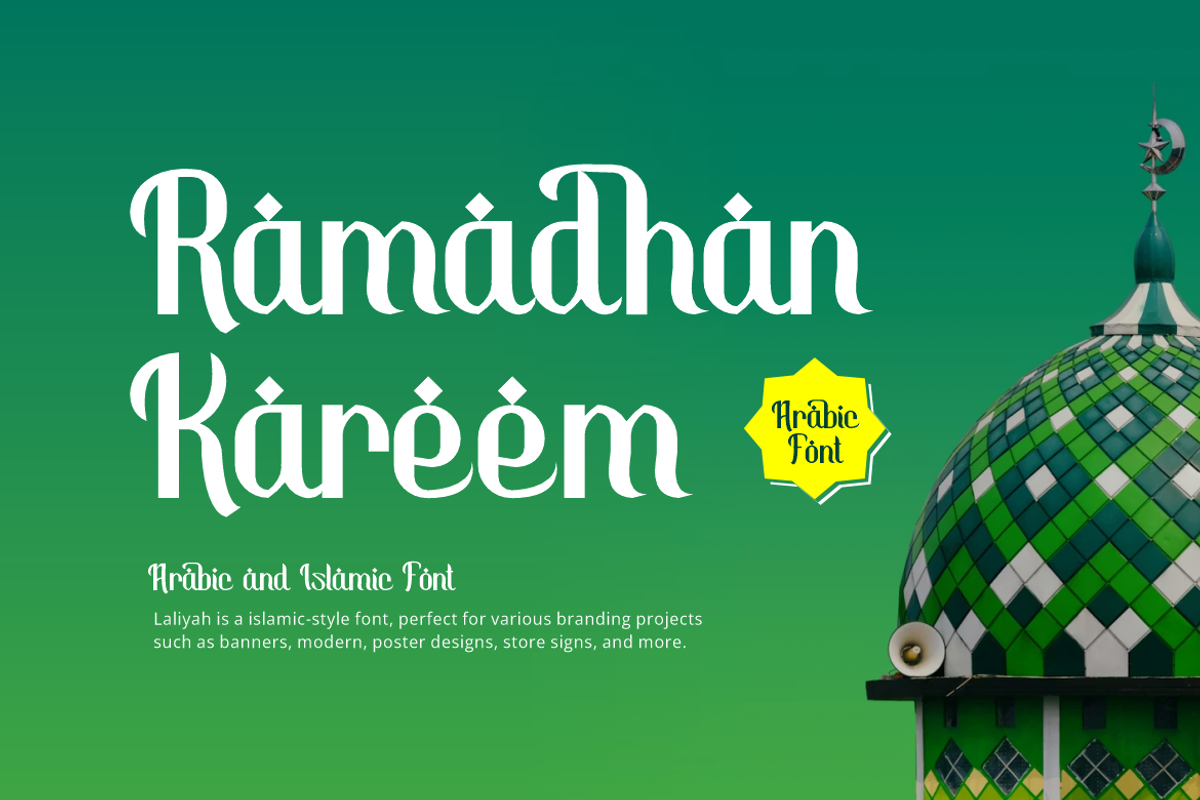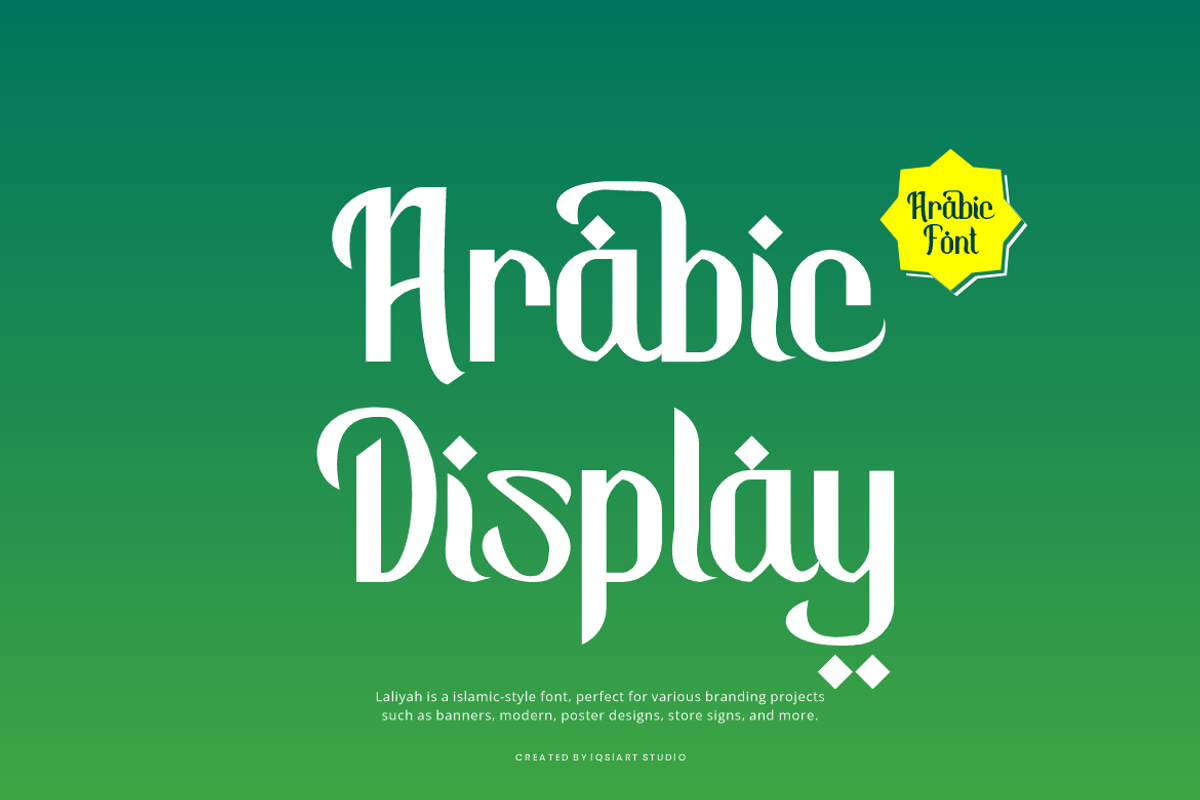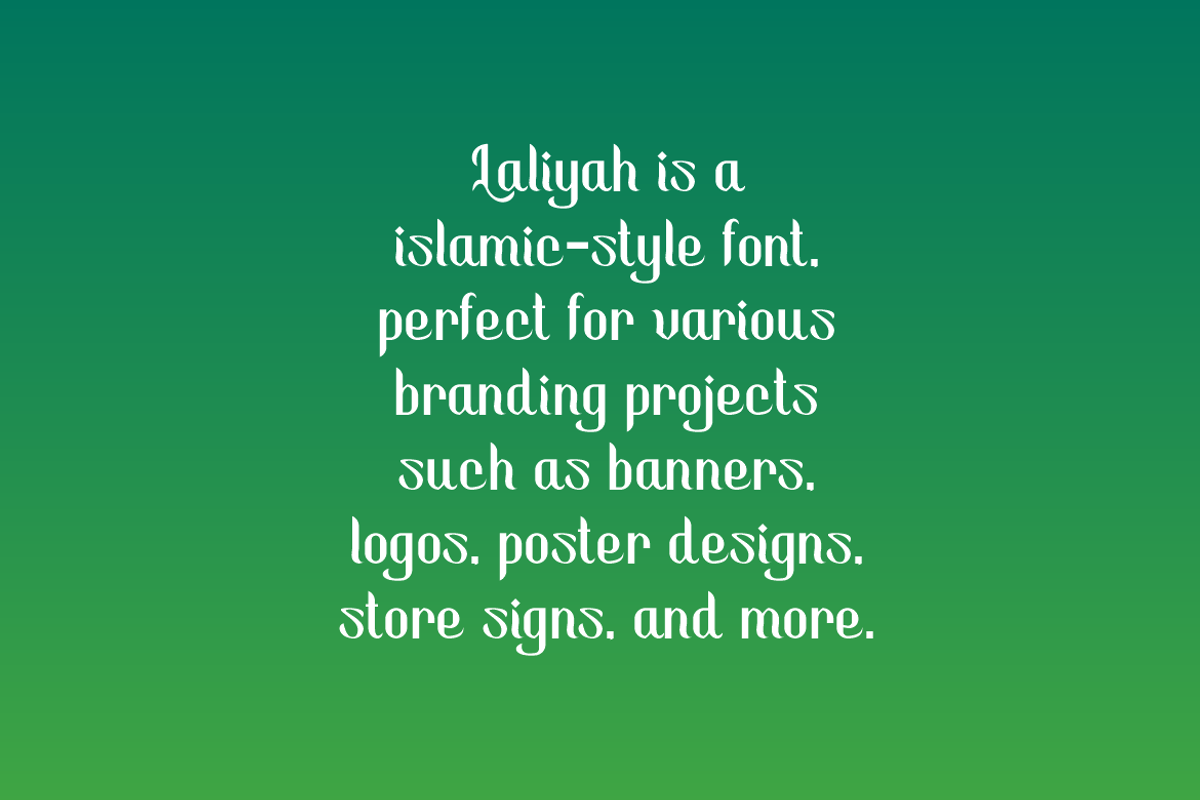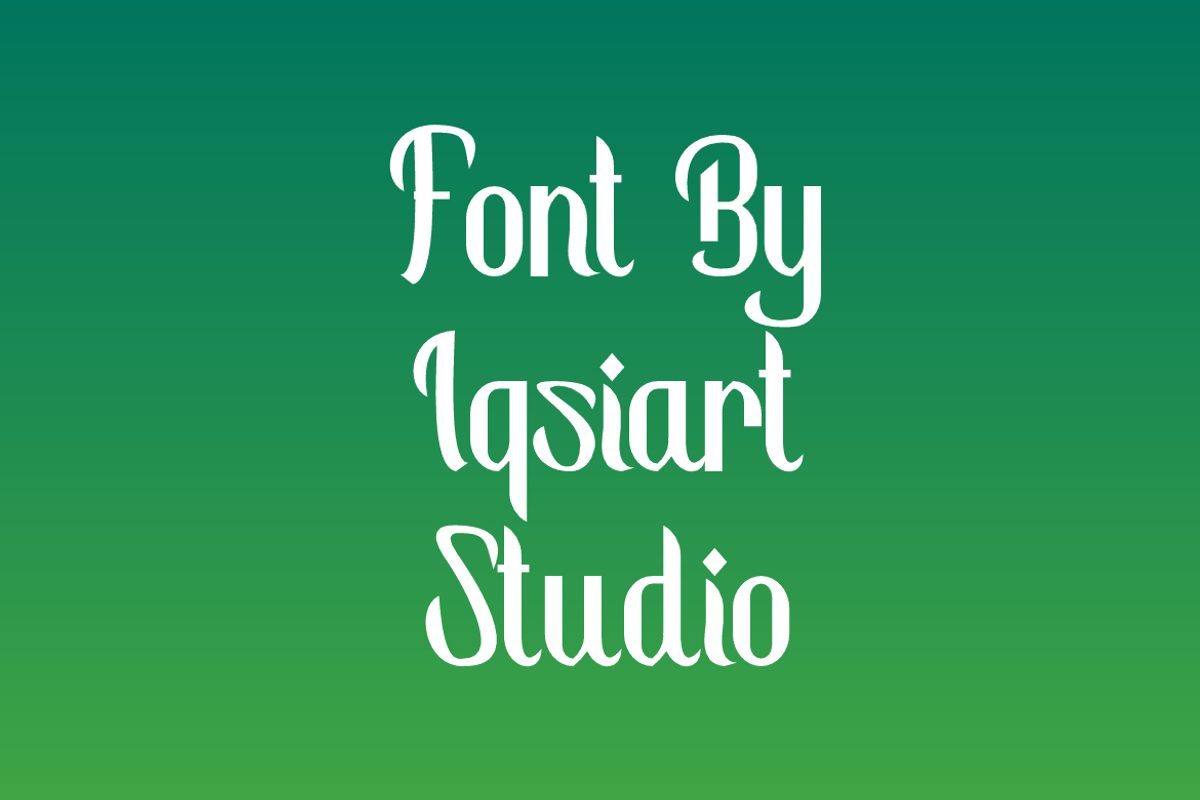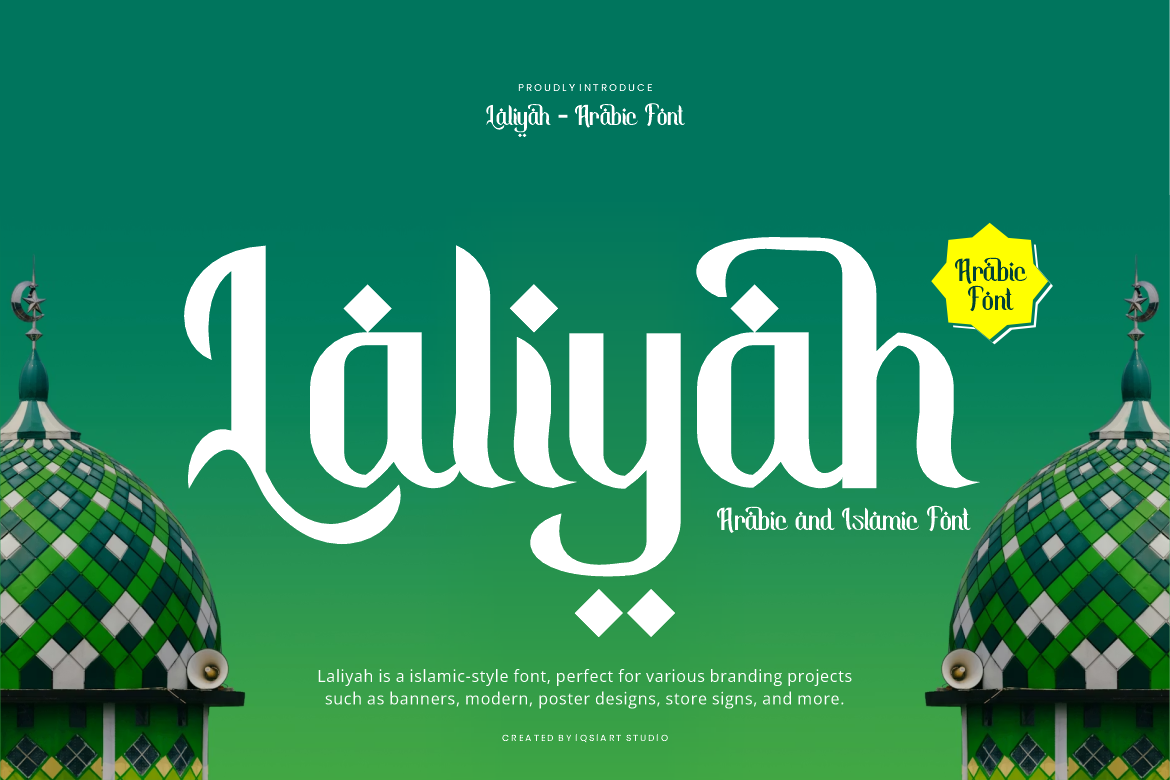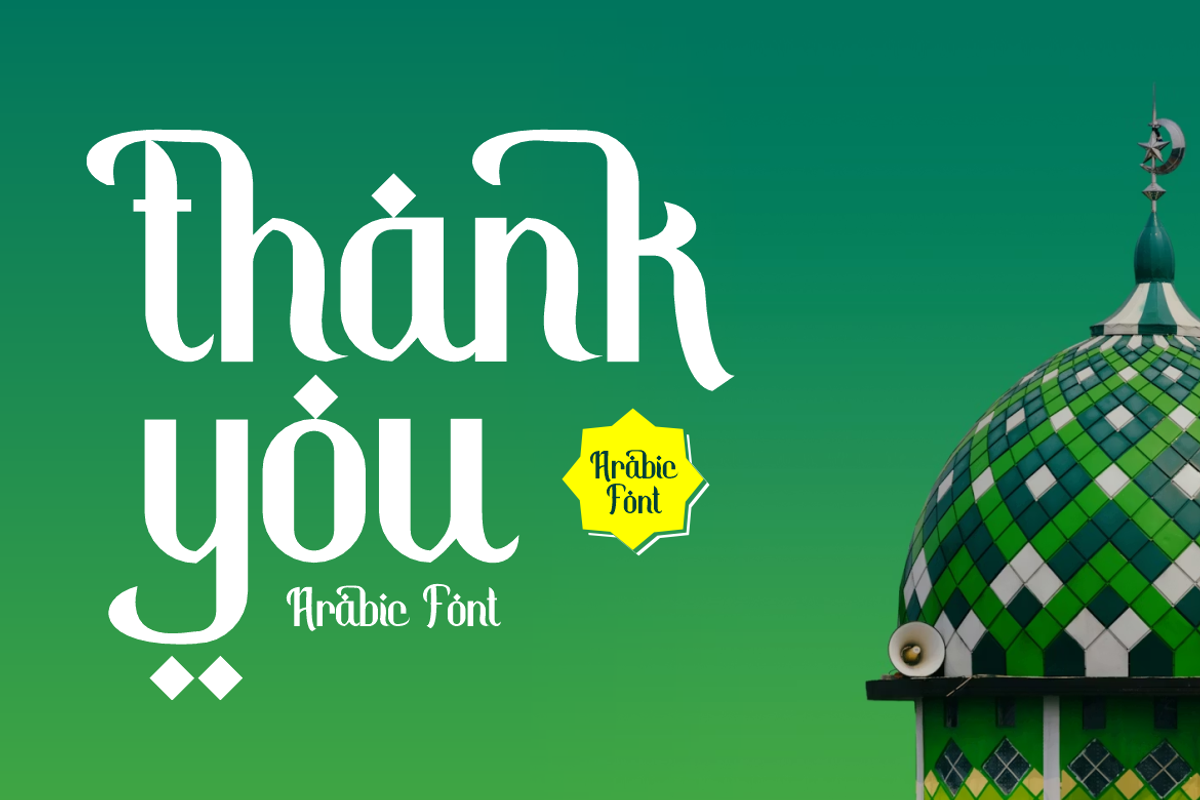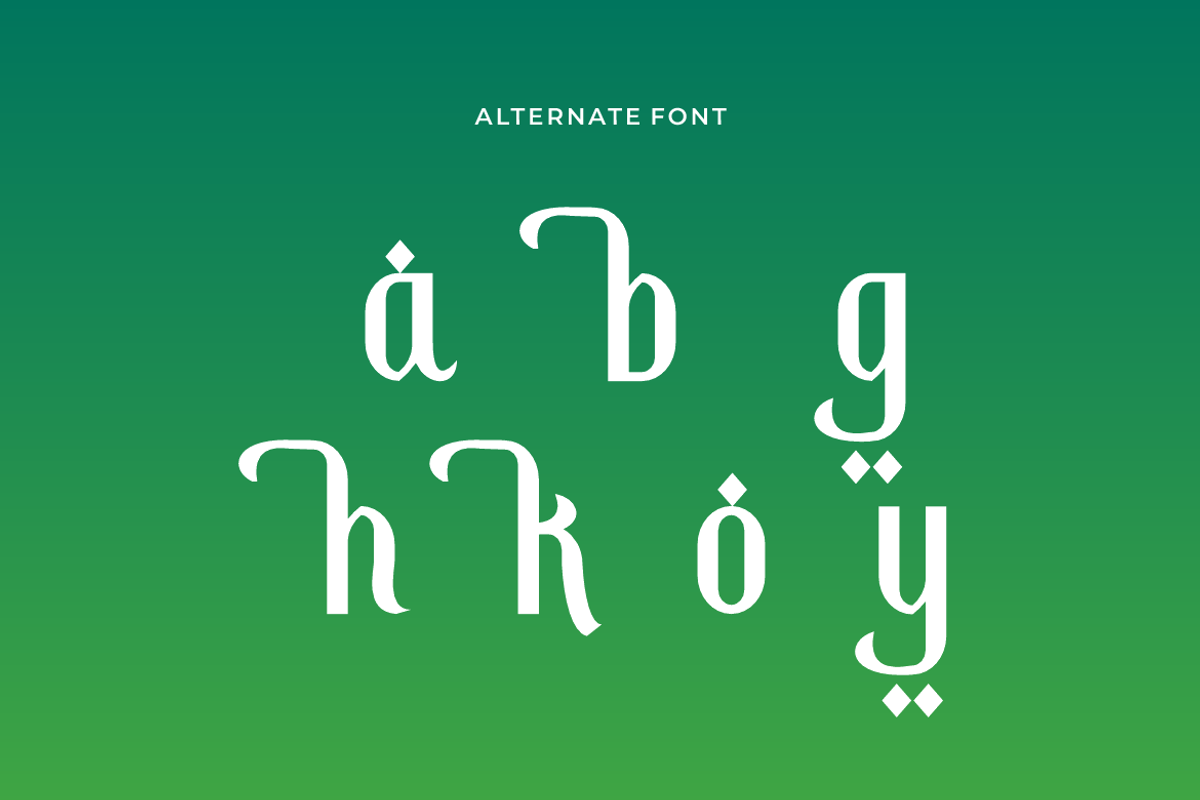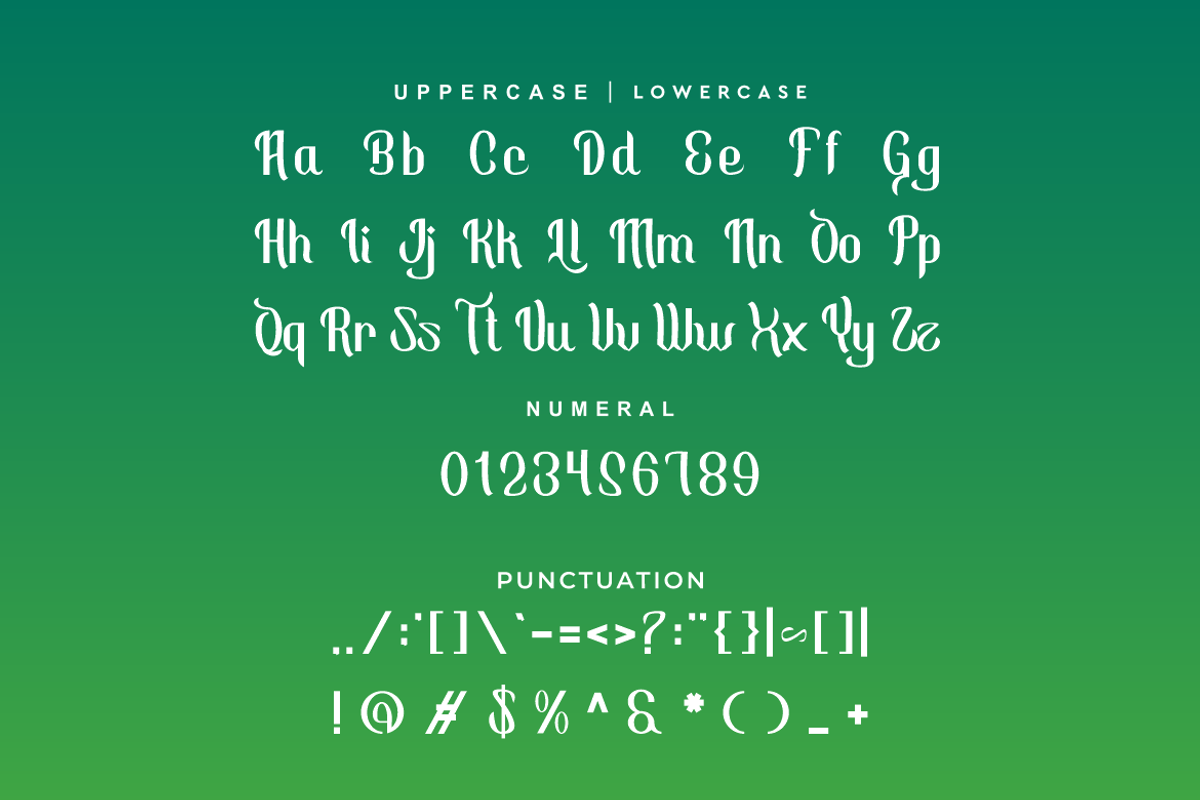
Laliyah - Arabic Ramadhan Font
Laliyah Font is a arabic and authentic display typeface that suits a variety of design needs. We offer a wide range of themes and font styles — visit our profile to explore more and find the perfect style for your project.